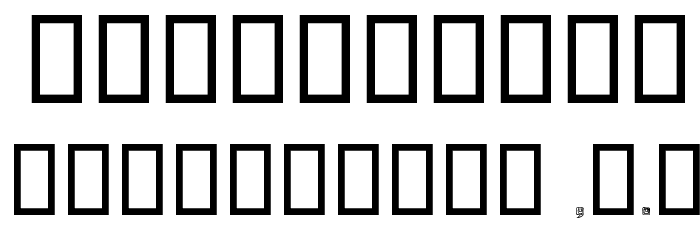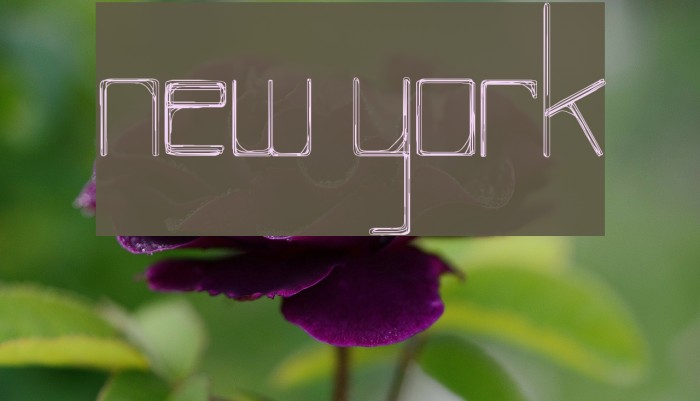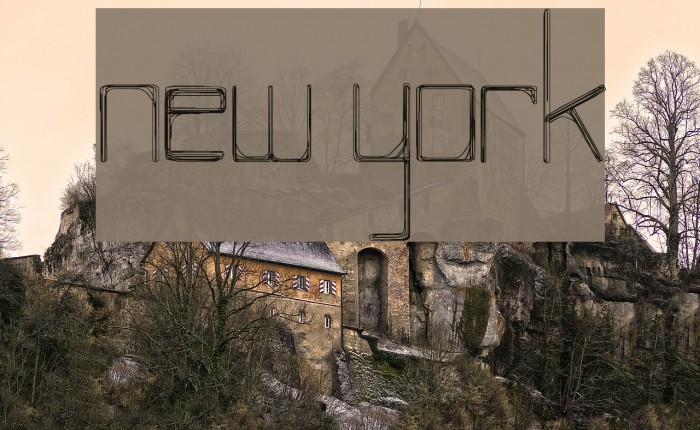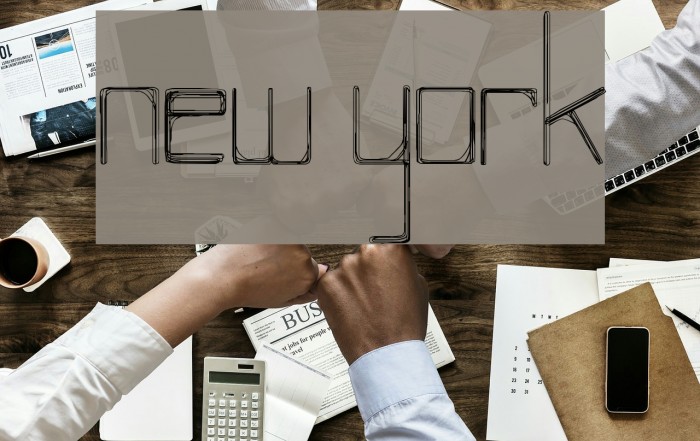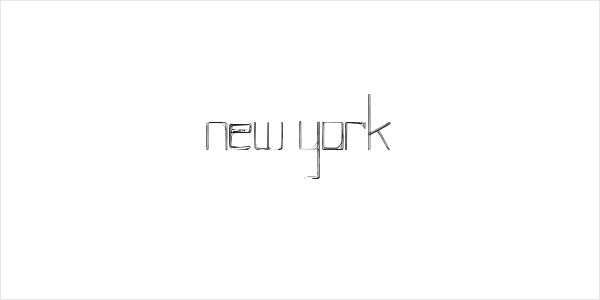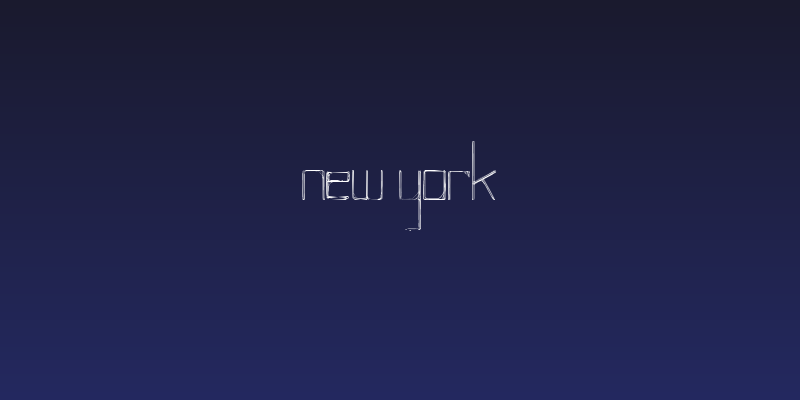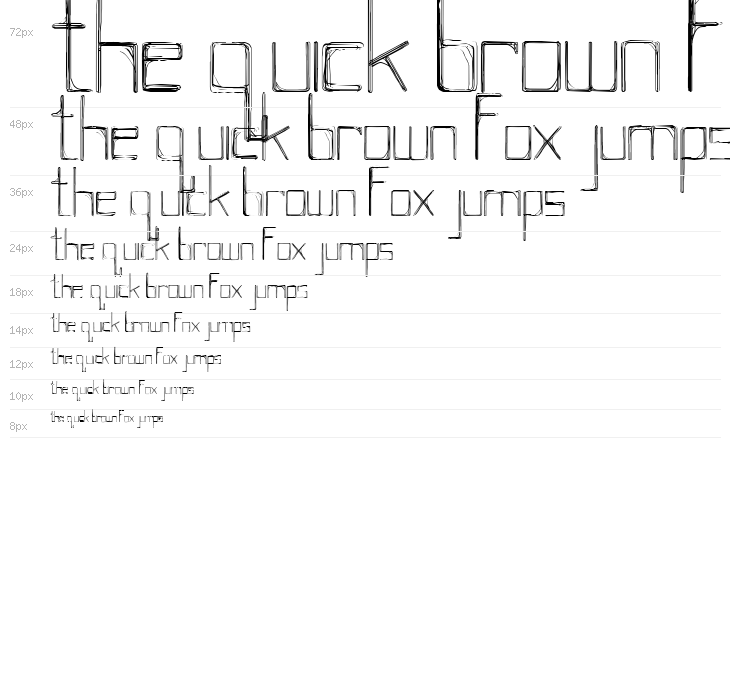
NEW YORK Font
NEW YORK Description
This font features a unique, modern design with a geometric and structured appearance. The characters are composed of thin lines with a consistent stroke width, creating a clean and minimalist look. The uppercase and lowercase letters maintain a uniform height, contributing to a cohesive and orderly aesthetic. The numbers are presented in a bold, square format, adding a contrasting element to the overall style. The special characters are designed to match the geometric theme, ensuring visual harmony across all elements.